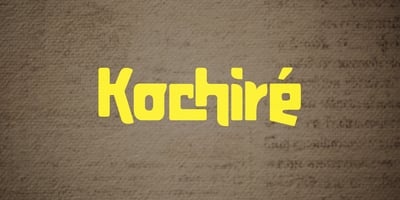
Kochire Font Family was designed by Jarnawi Saja and published by Grontype. Kochire contains 1 styles and family package options. About the Product :Richest is a very attractive display font, each Fonts has its own uniqueness, is made with great care to produce a good work. Richest font can be used to make flyer banners title, logo, Book or magazine header. it also can be used for product brandingFeatures : Kochire All Character Ligature Alternate Character Multilingual Support